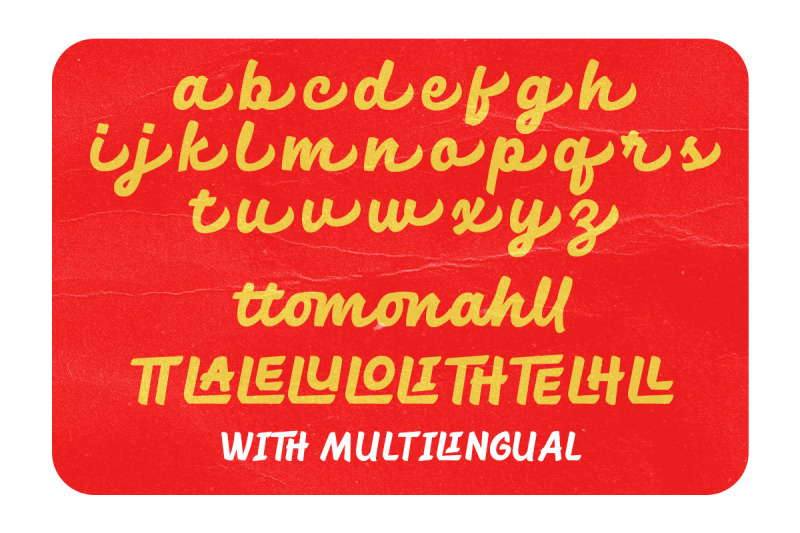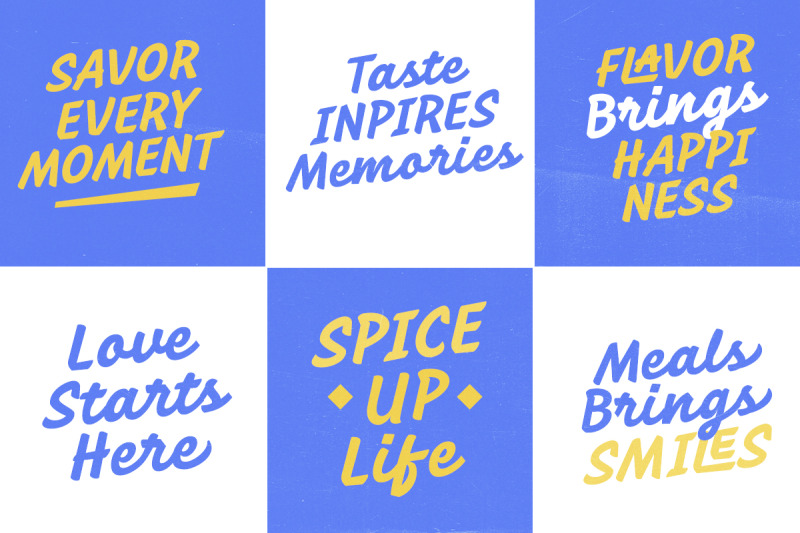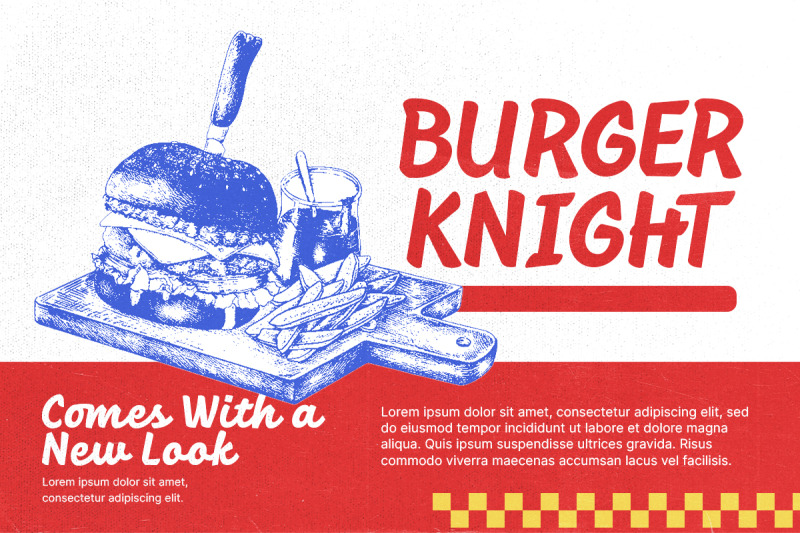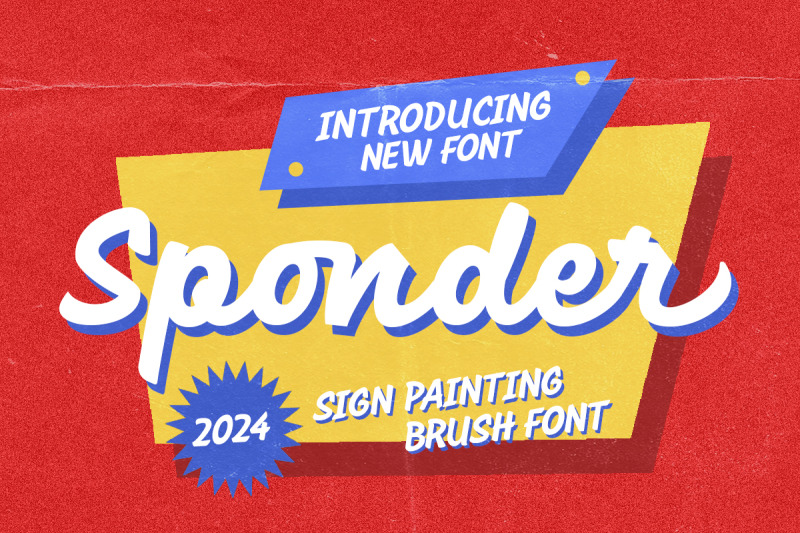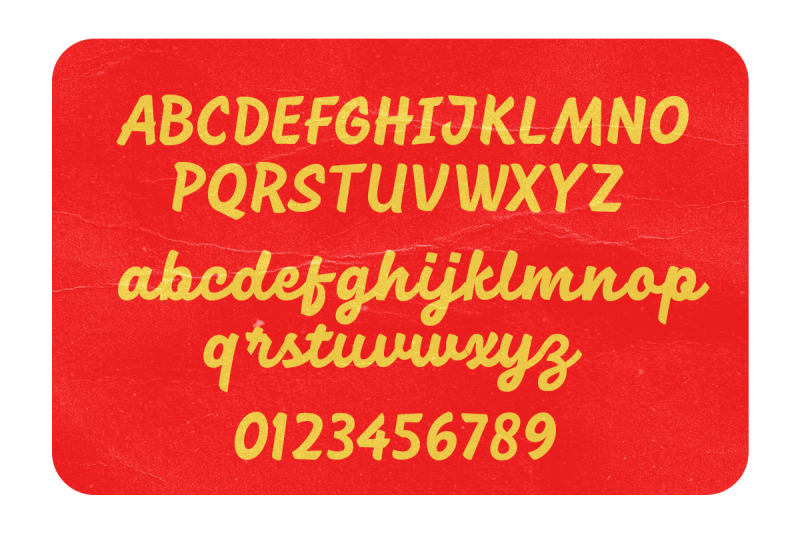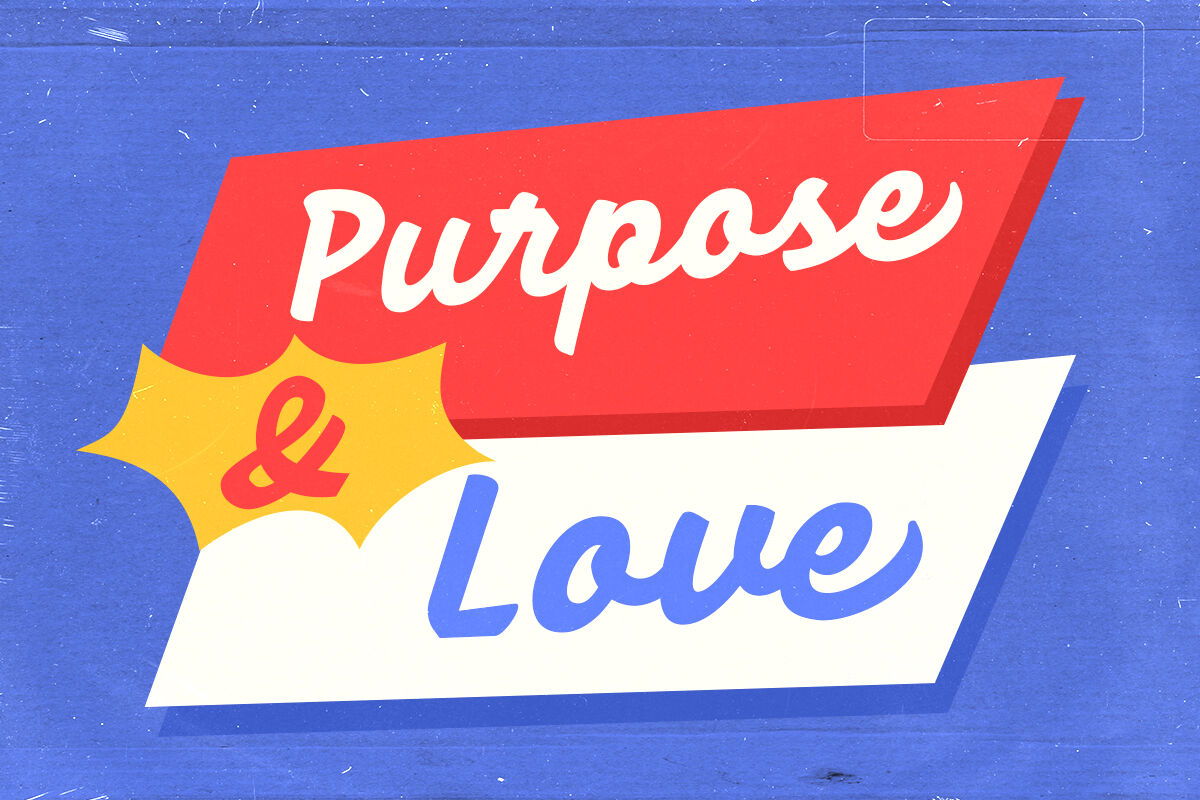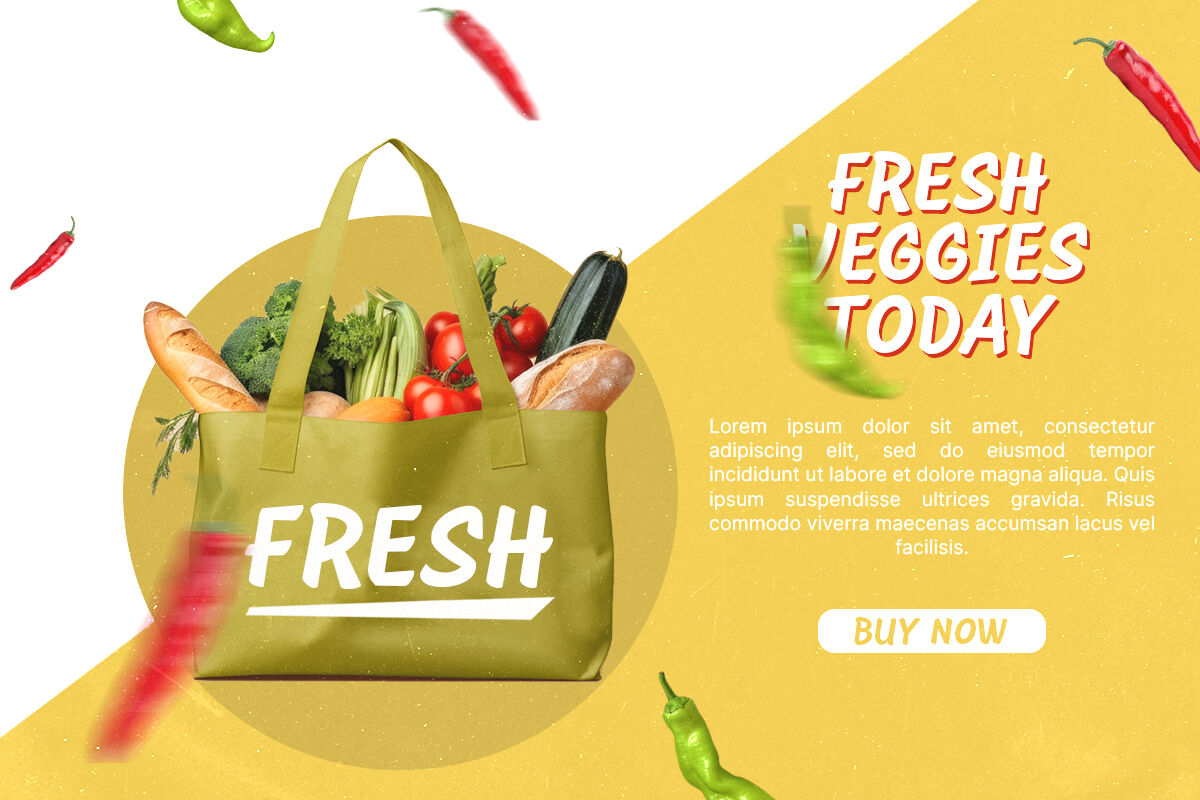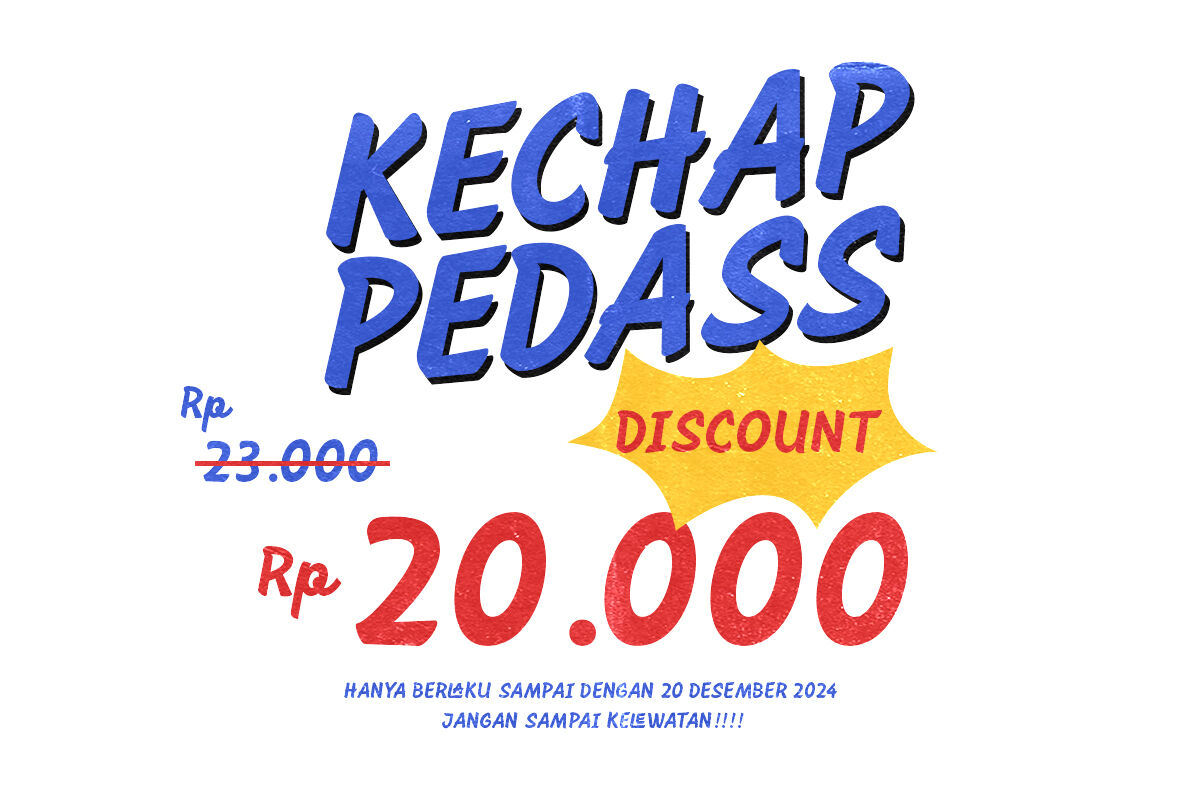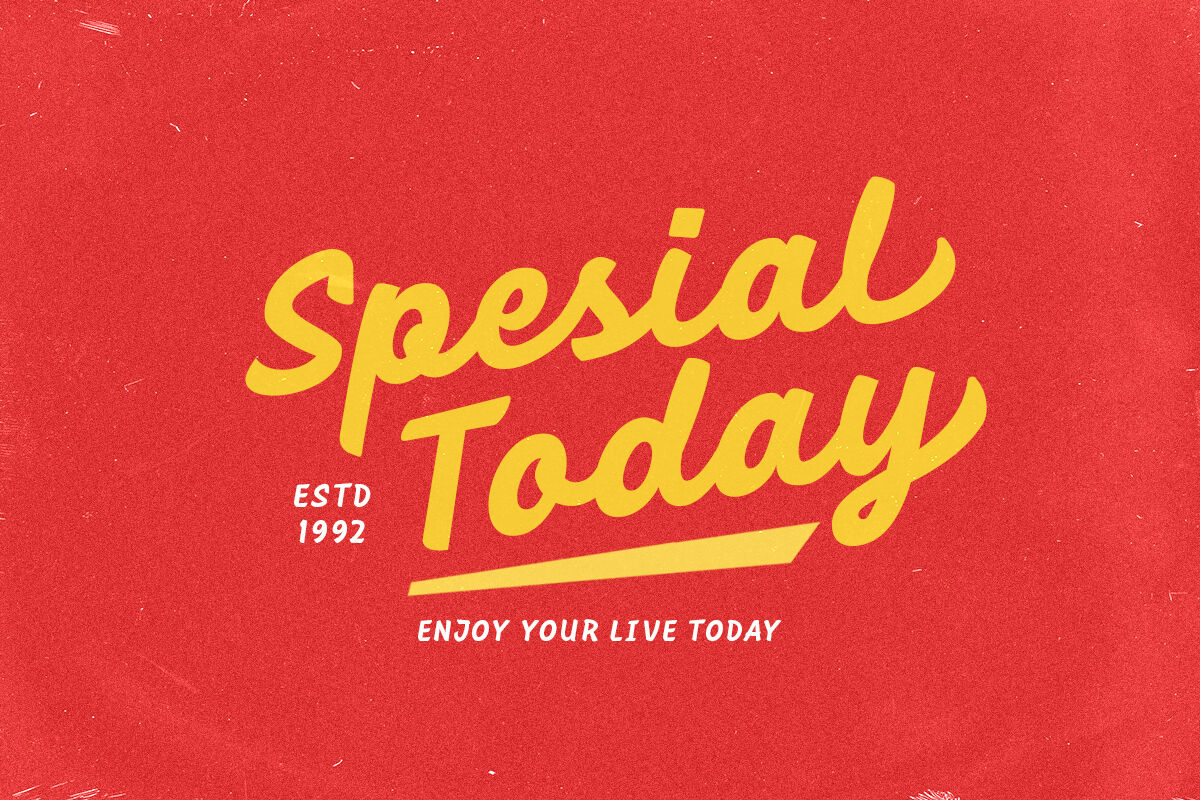
Sponder - Sign Painting Font
Sponder is a sign painting font with retro and vintage style. With lowercase and uppercase that you can use separately to make quotes and logotype. Also comes with ligatures and alternates that will make your text and designs looks more stunning. You can use this font for any purposes especially for project that needs retro vibes. Sponder also support multilingual.